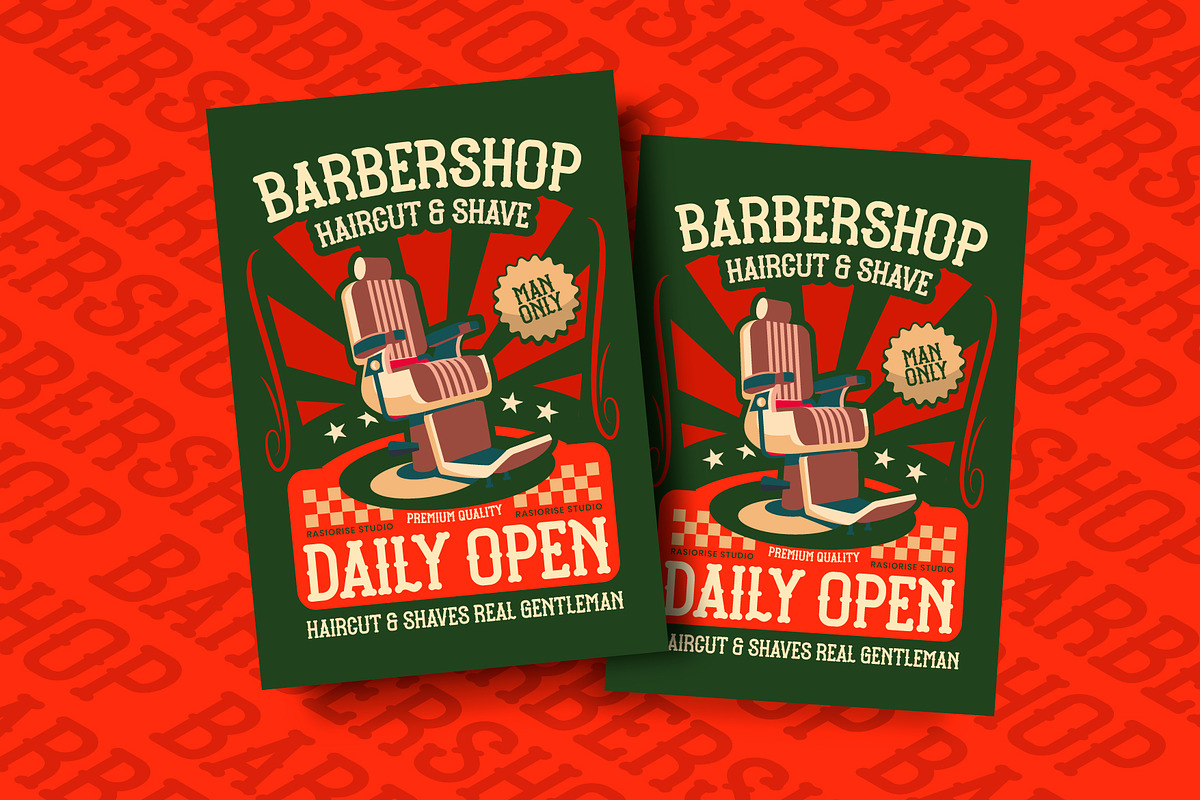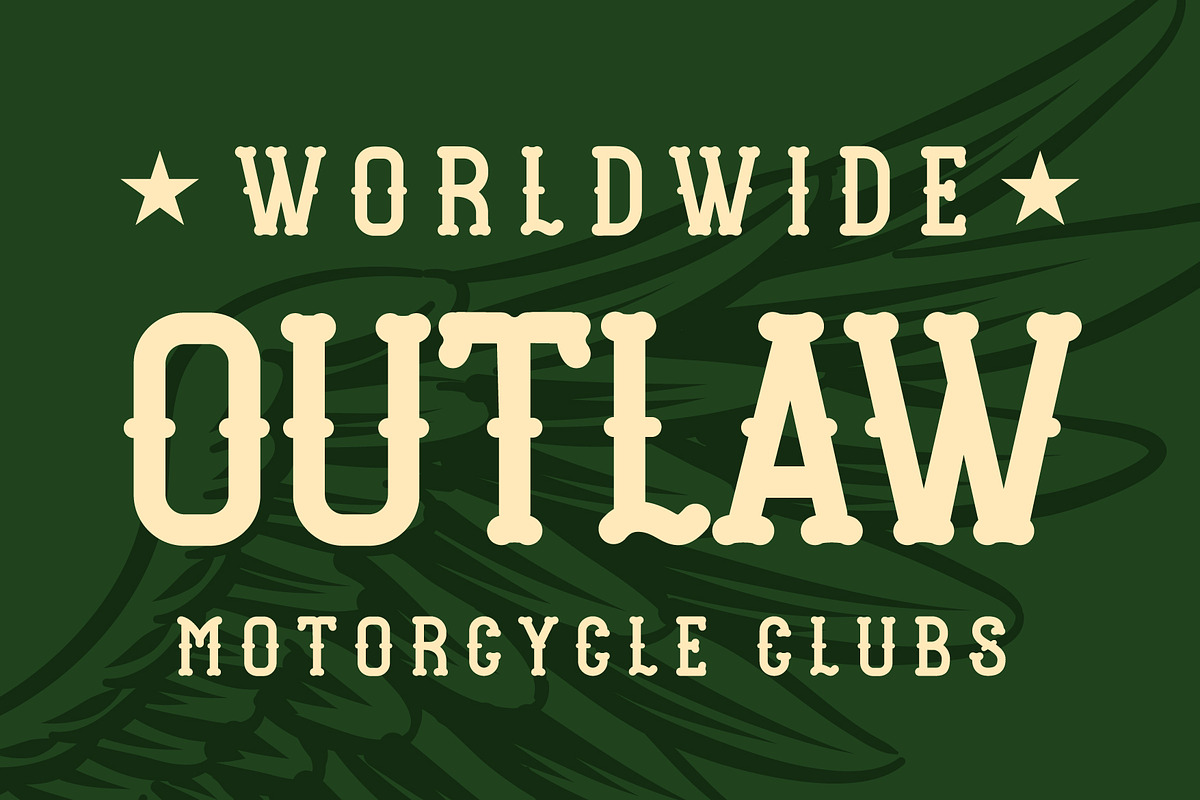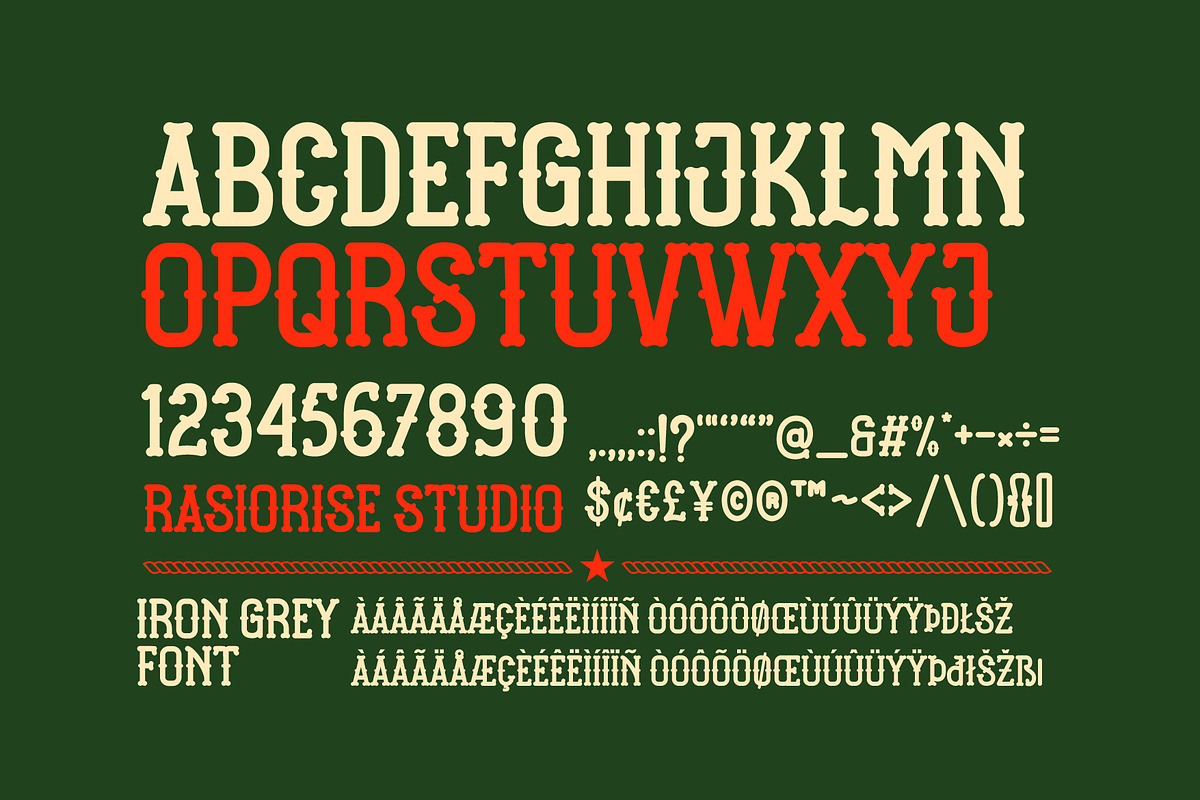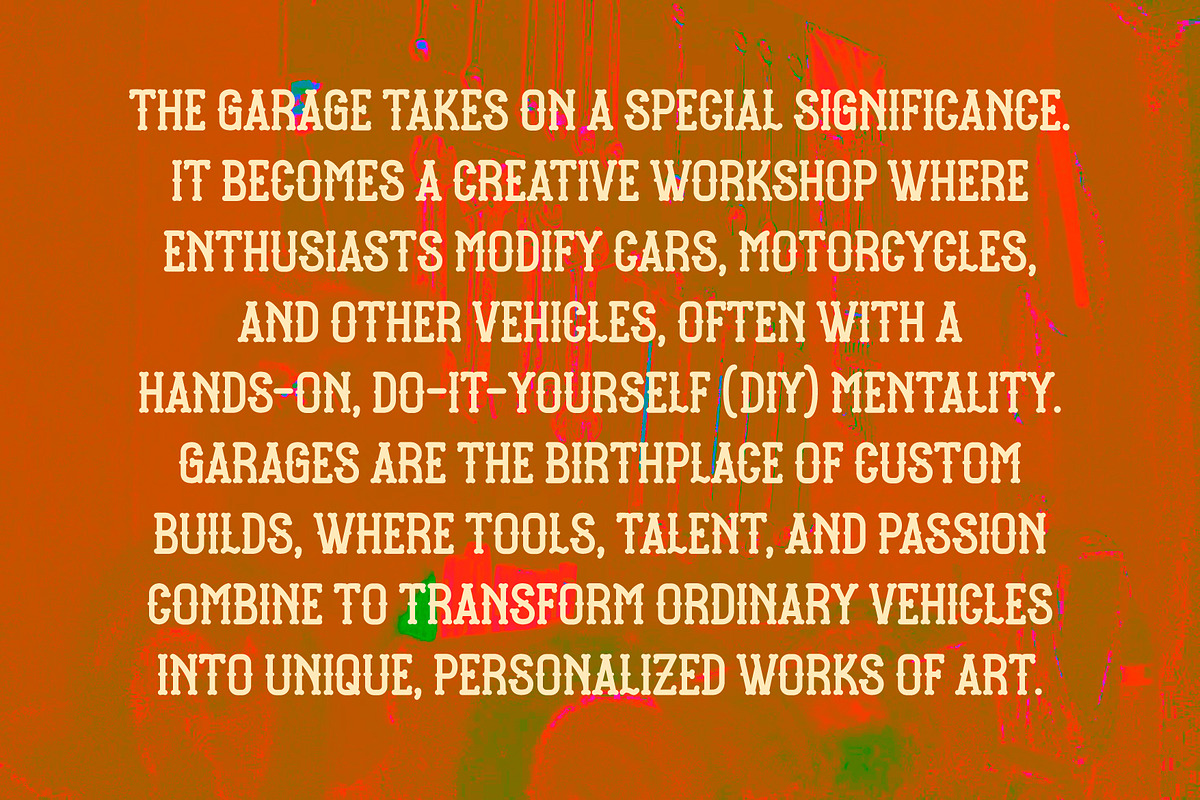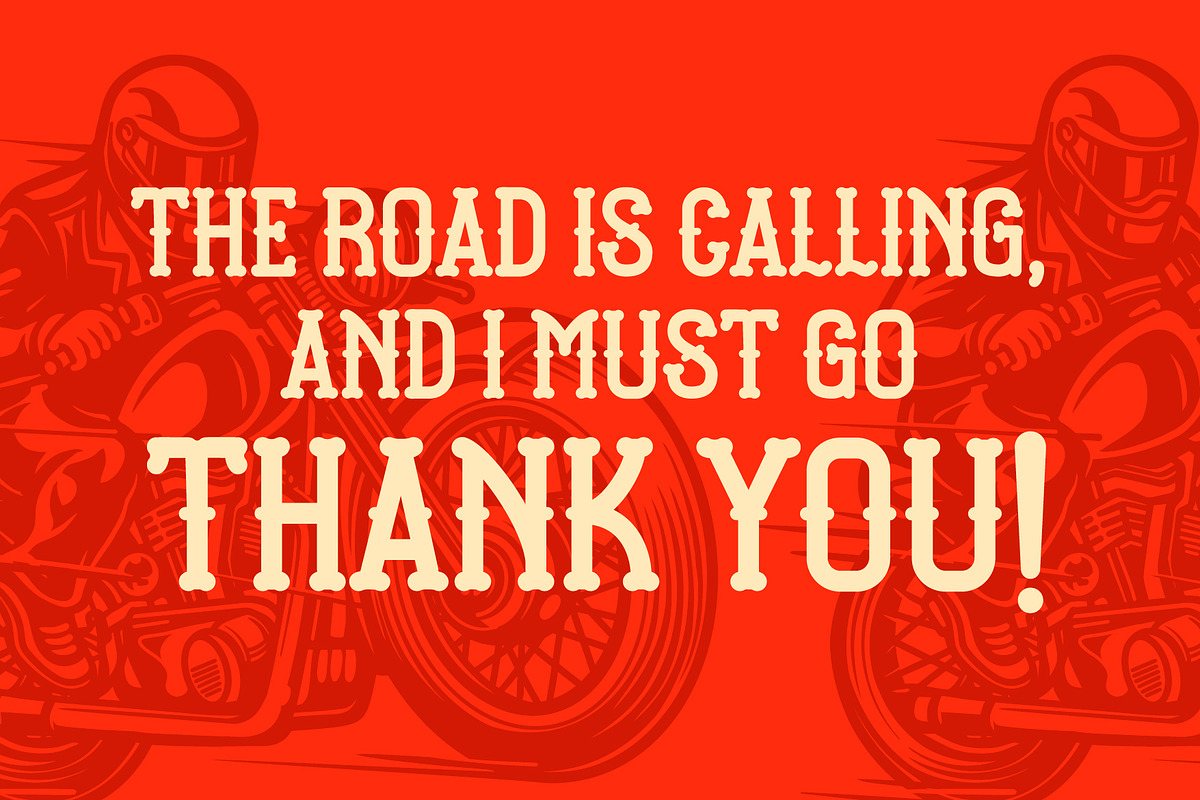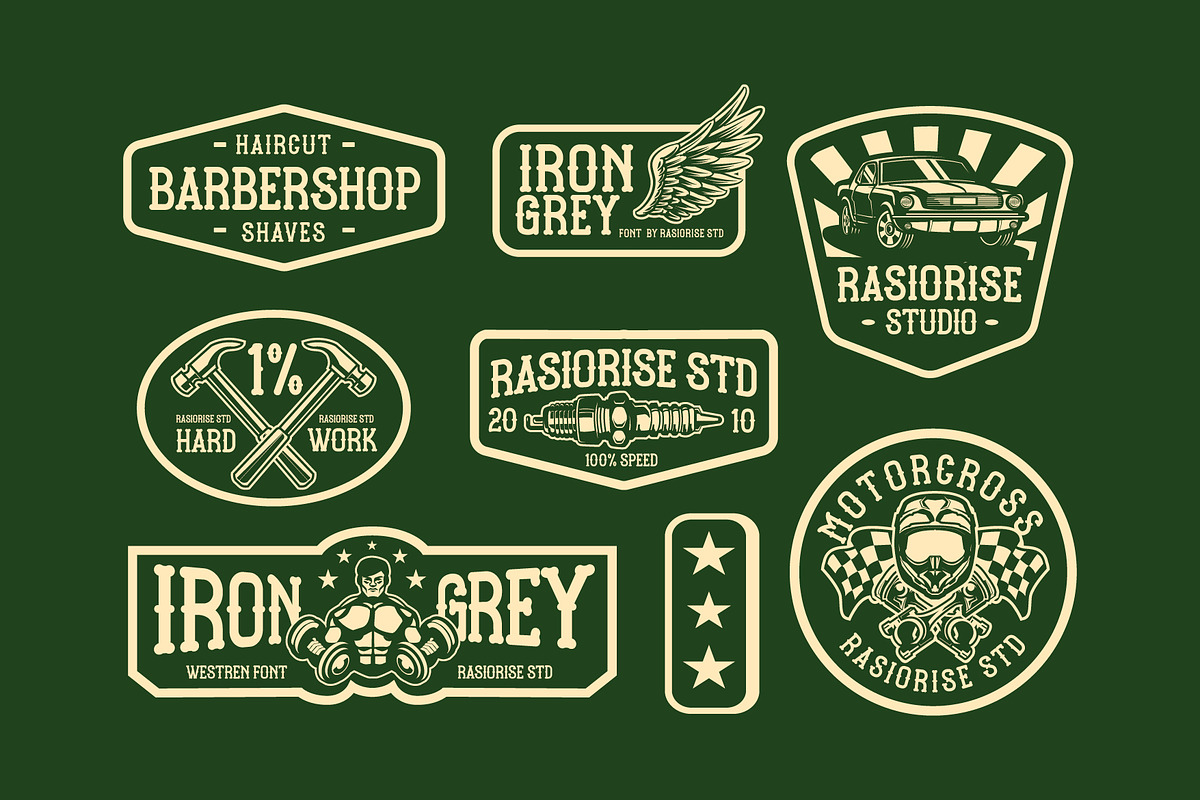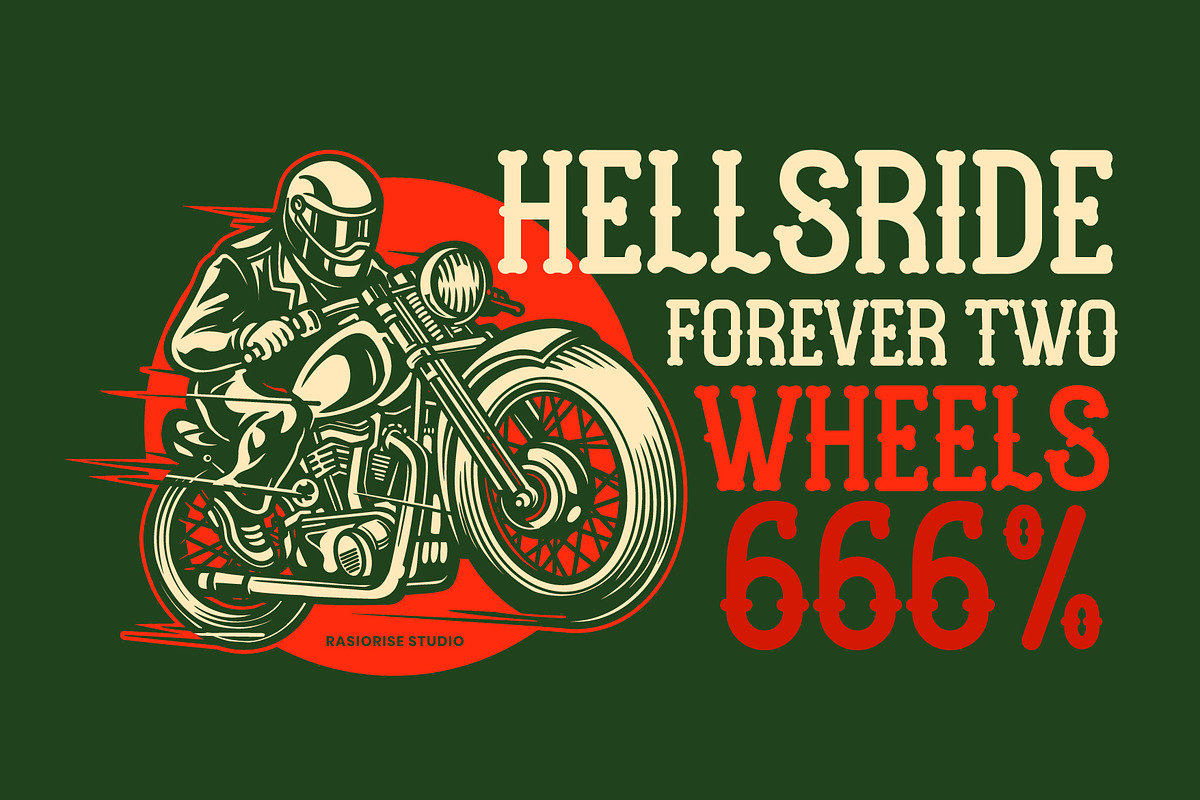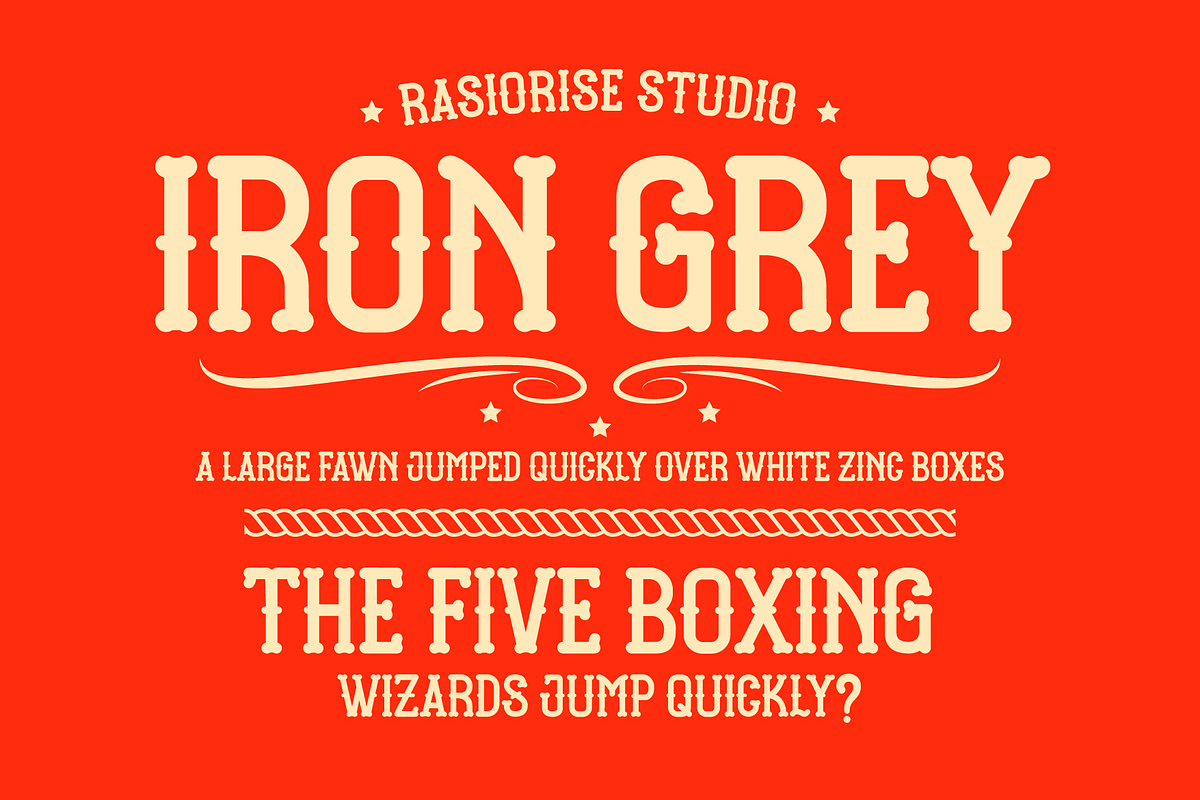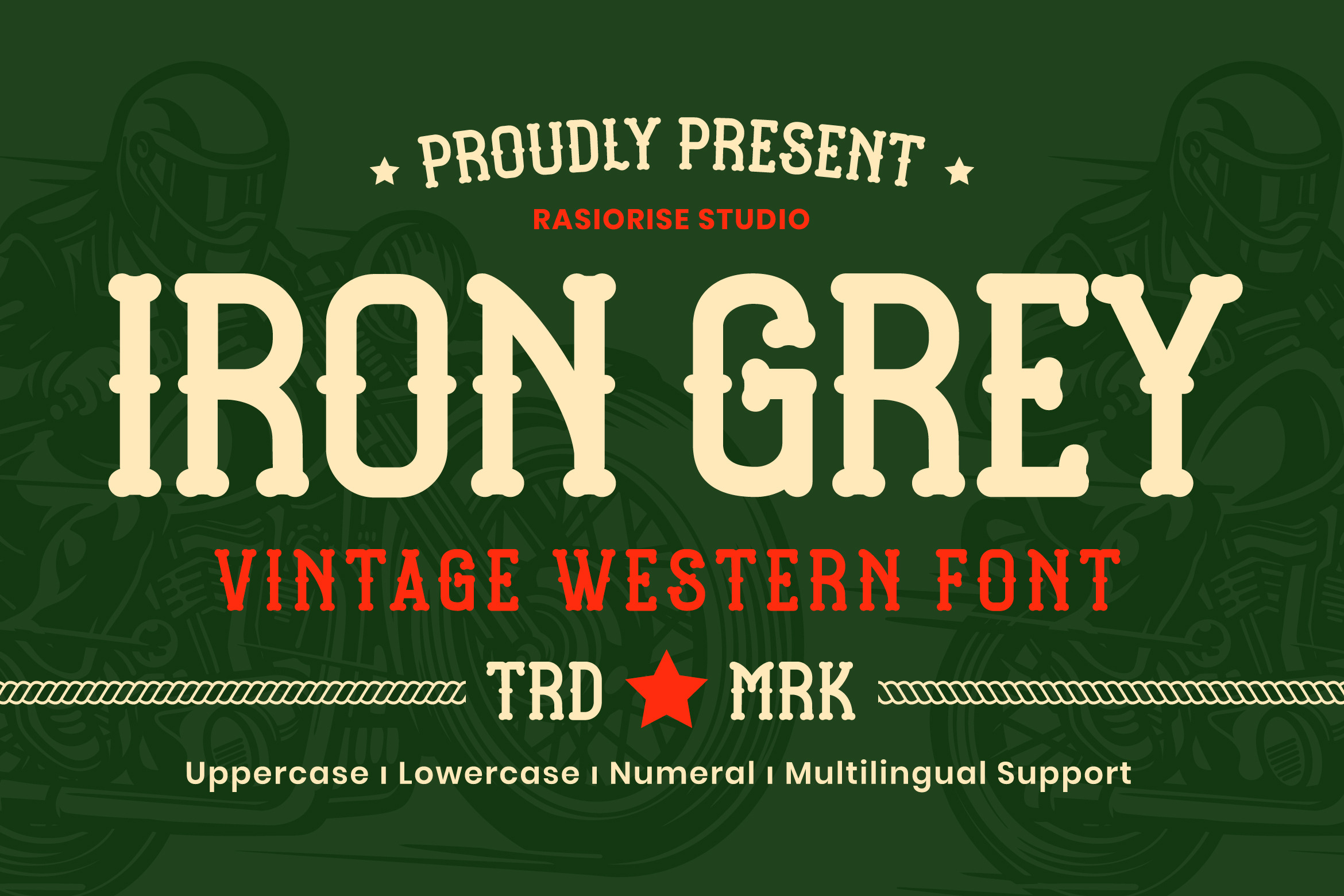
Iron Grey a Vintage Western Font
Hello Everyone! Iron Grey Font has been released for those of you who are looking for Vintage Western serif font, The font is inspired by the Vintage Motorcycle classic font style with a few combine to turn them into a bit of a Vintage Western style. This font is reguler character style, included as the Uppercase and lowercase regular character, numeral and multilingual support,
Very suitable for Motorcycle Badge, Vest Design, Logotype, Book Cover, Badge and Emblem Logo and much more.